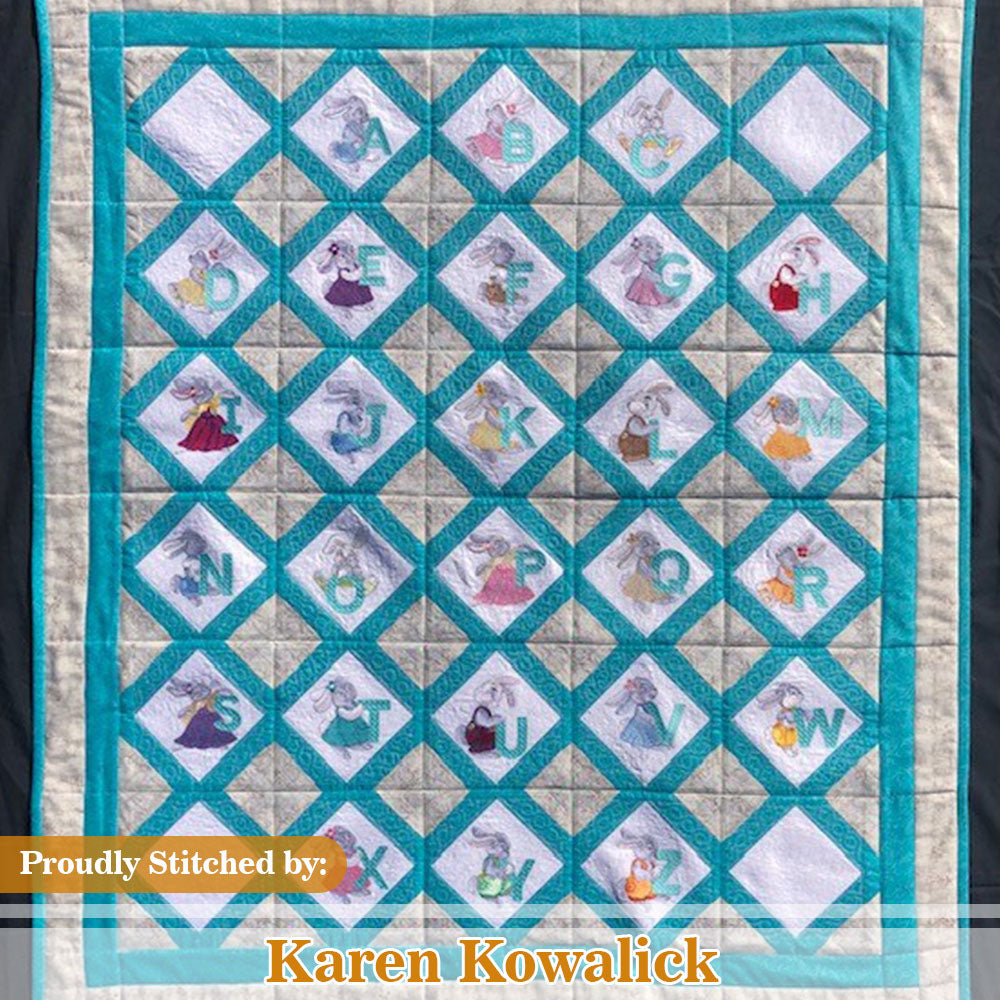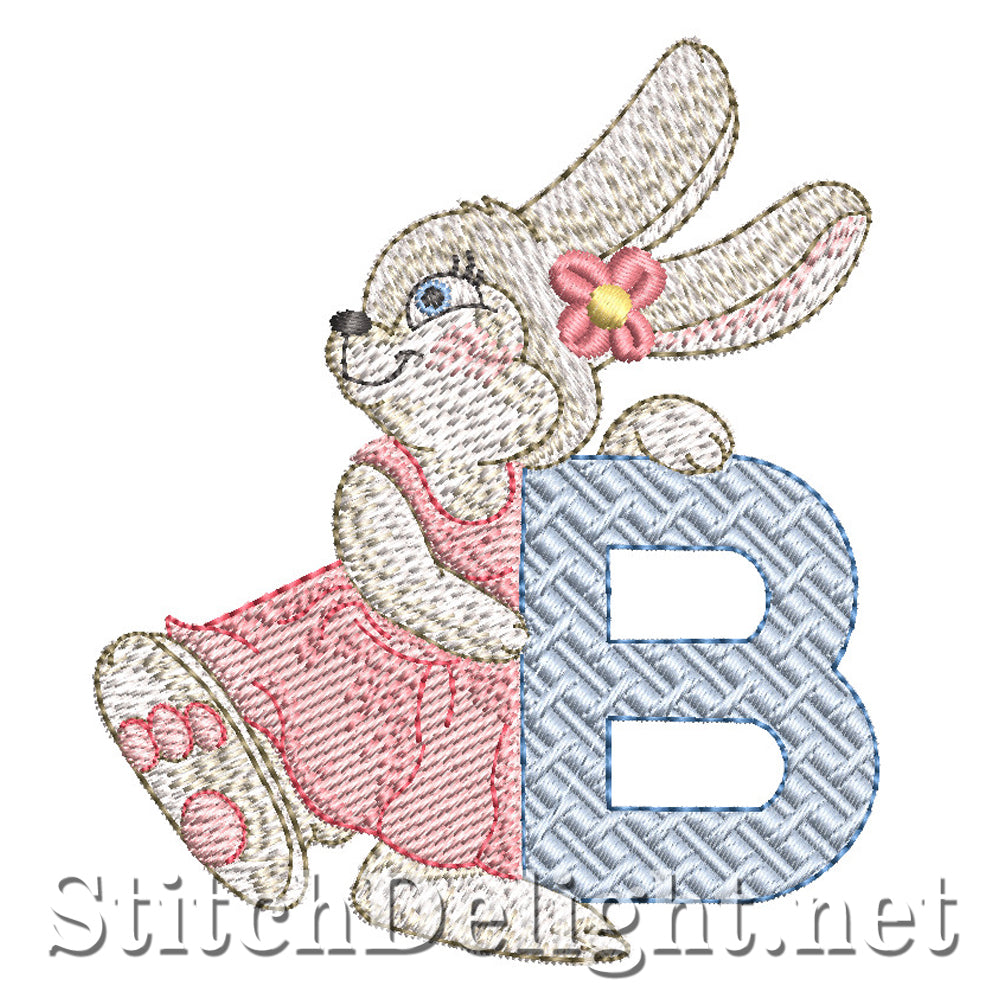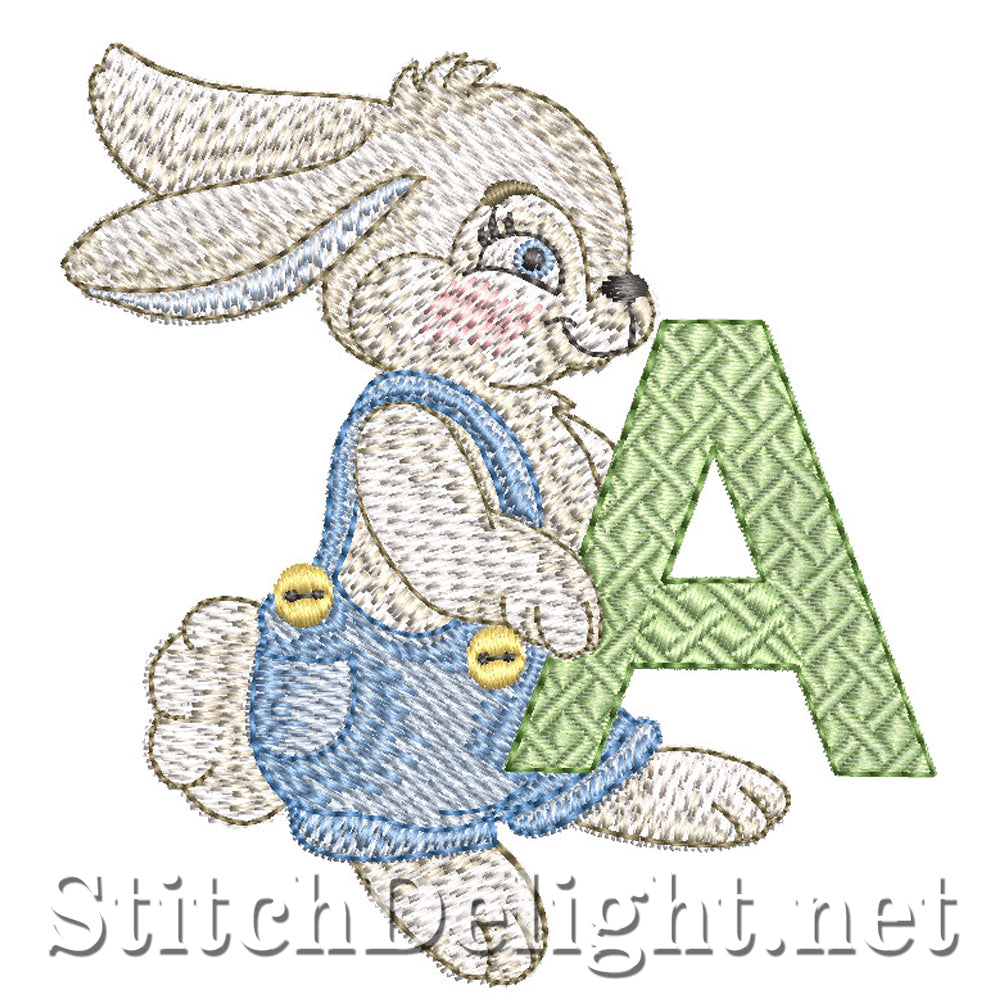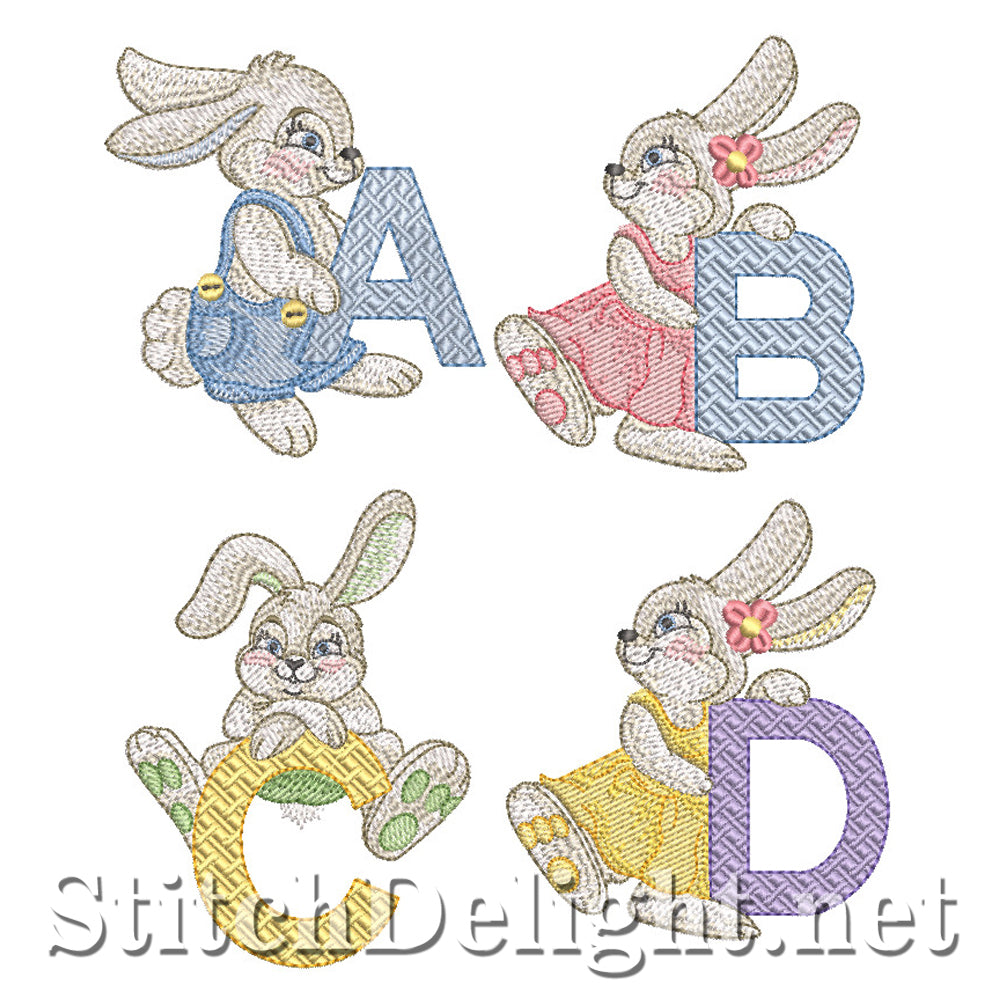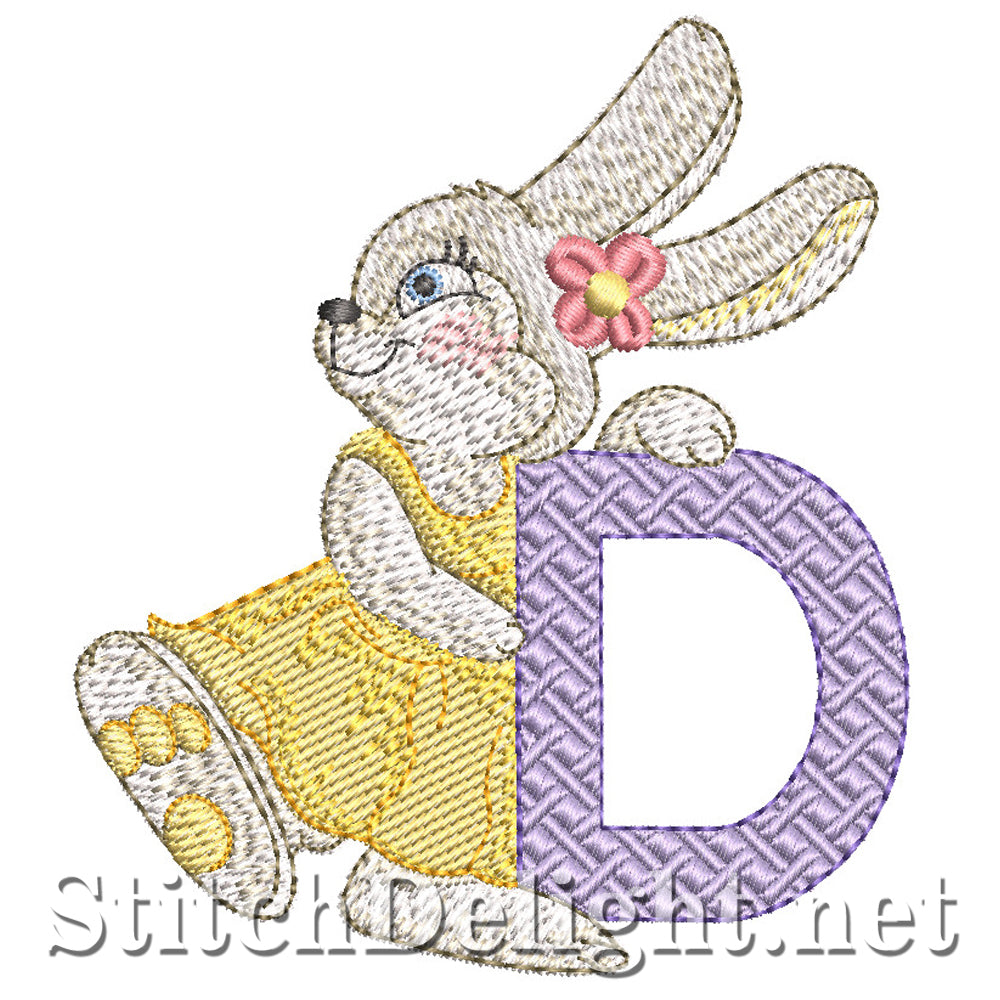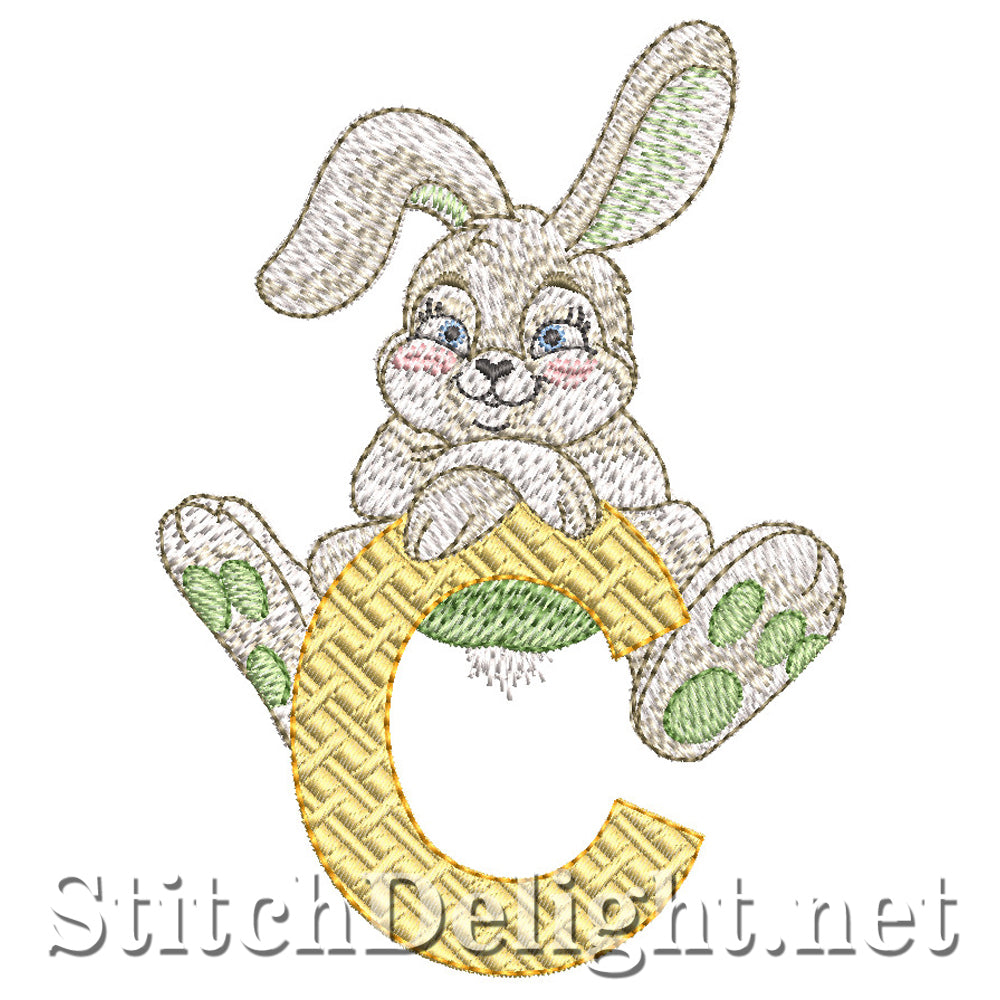
SDS1565 Hopper Font
The cutest little bunny set ever, these cute little fur balls are all made to fit a 4x4" Hoop and includes all 26 letters of the alphabet.